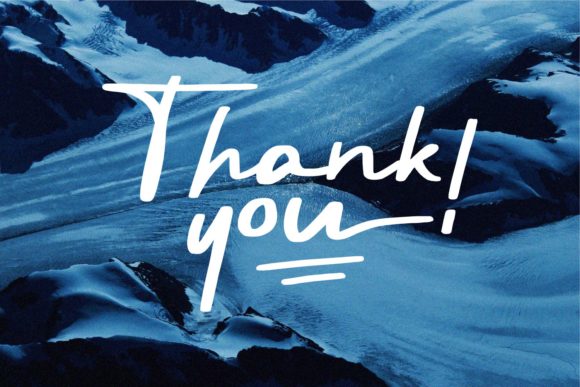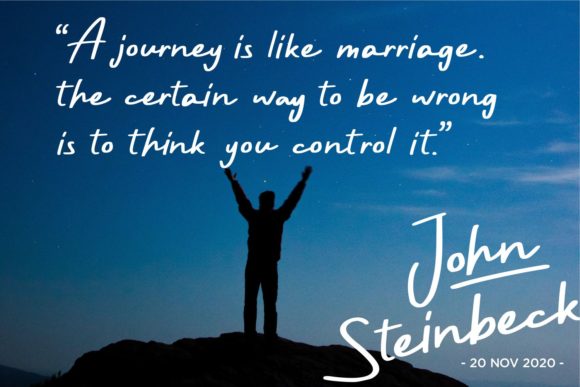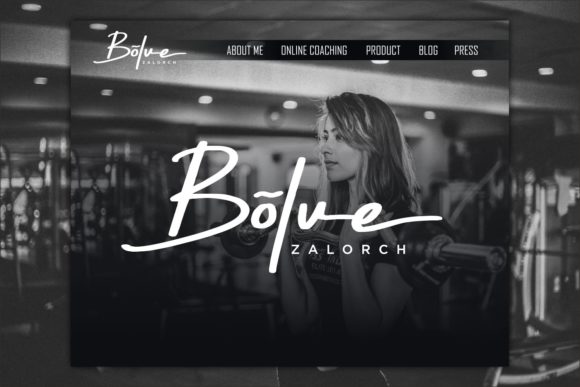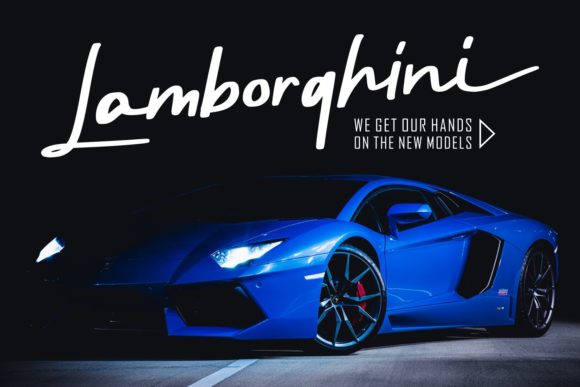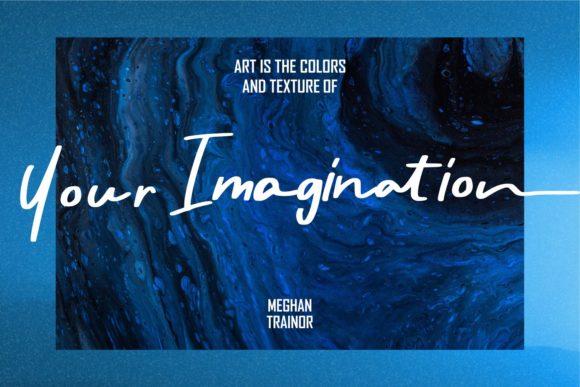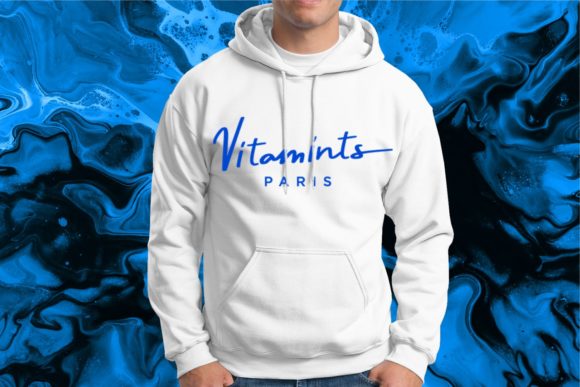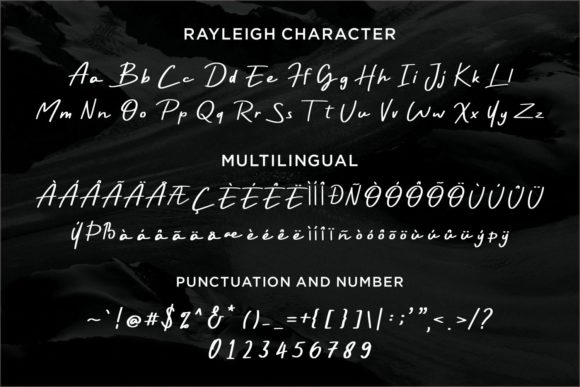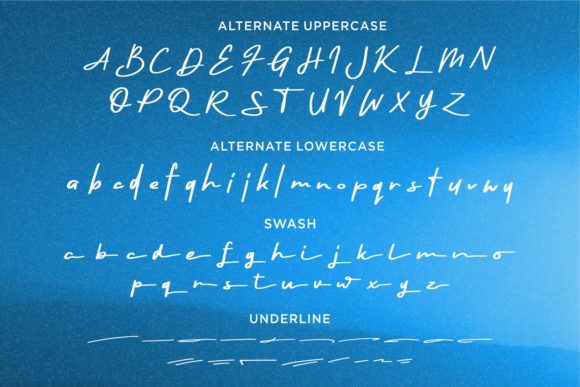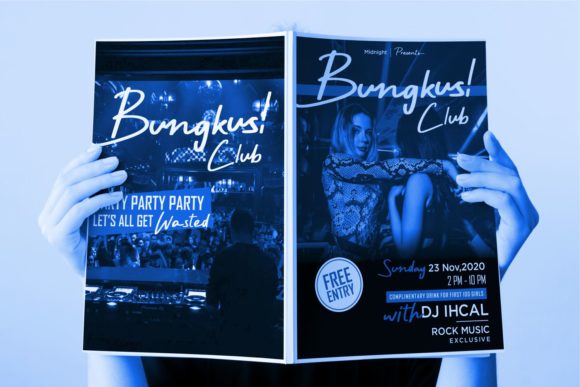
Rayleigh Font
About Rayleigh Font
Rayleigh is a cute and relaxed handwritten font, created with the help of a brush pen. Every letter has a unique and beautiful touch, which will make your design come alive!